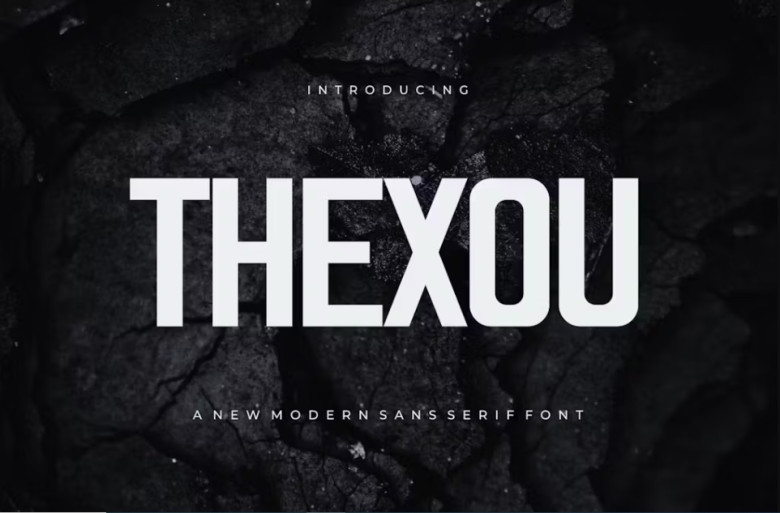
Thexou Font
Thexou Font is an affordable yet classic display font ideal for logos, branding wedding accessories fashion greeting cards lookbooks marketing promotional efforts whenever elegance and casual elegance is desired simultaneously.
Thexou Sans Serif Font